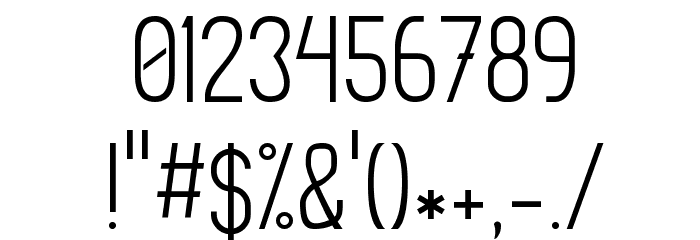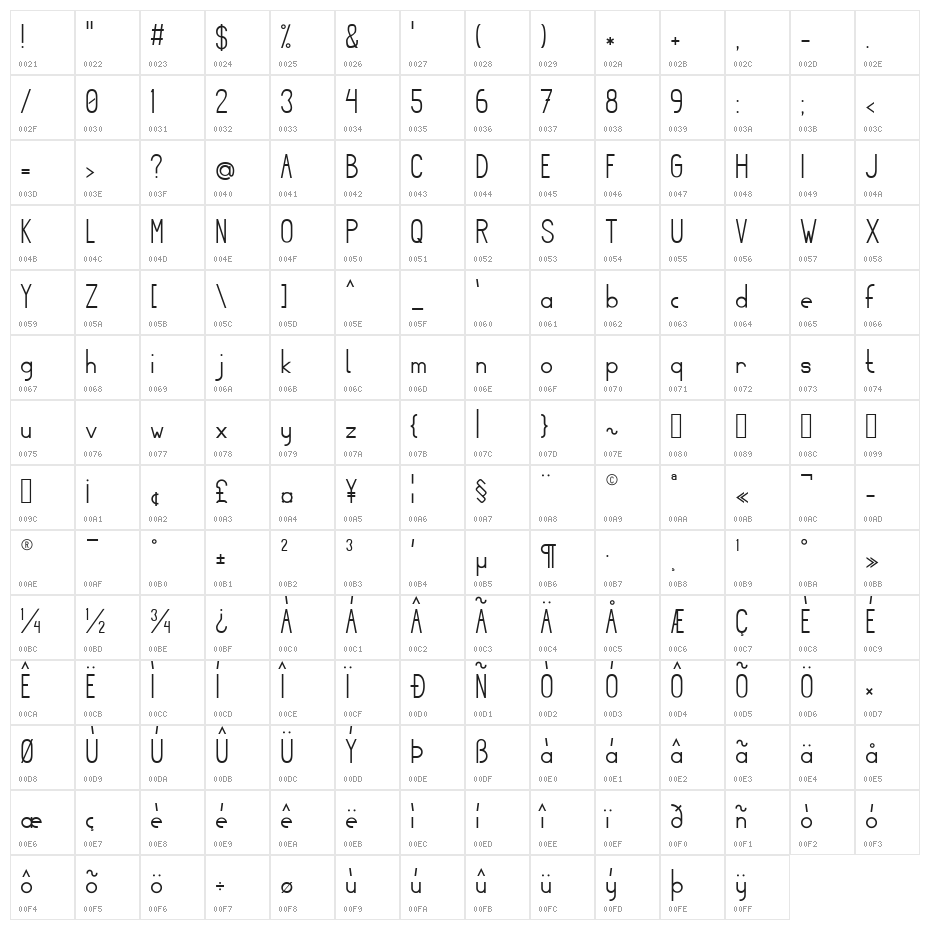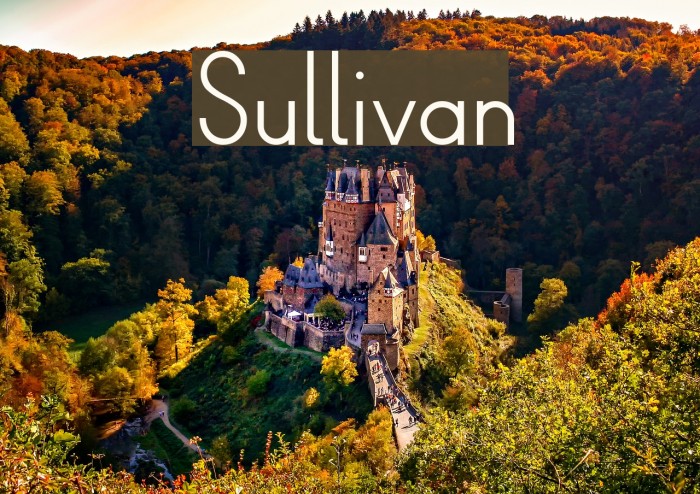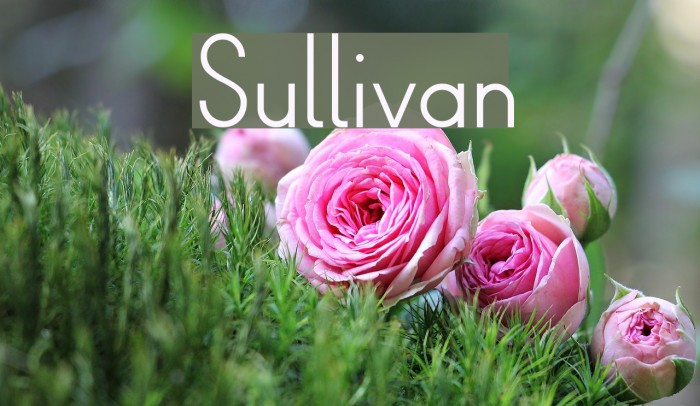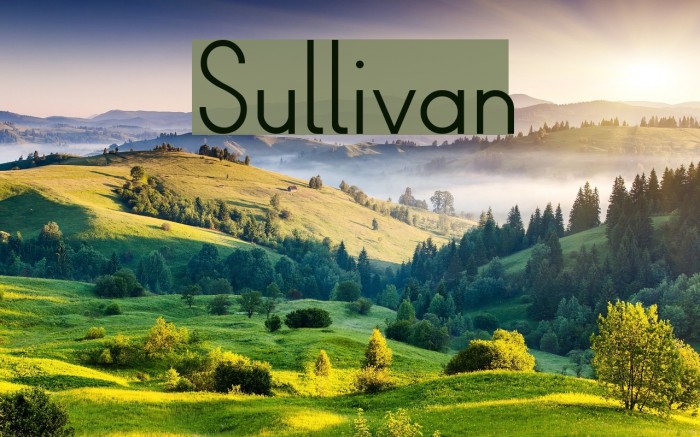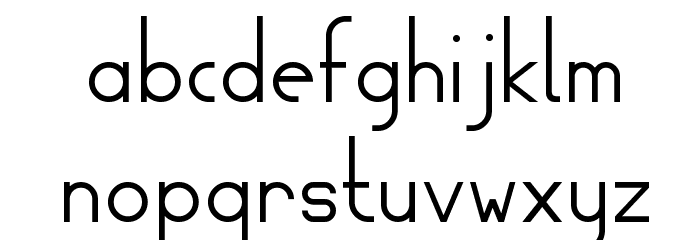
Sullivan Font
Sullivan Description
This font features a clean and modern design with a geometric structure. The characters are tall and narrow, giving it a sleek appearance. The uppercase letters are uniform in height, while the lowercase letters maintain a consistent baseline with slight variations in ascenders and descenders. The numerals are distinct and easy to read, matching the overall style of the alphabet. Special characters are well-integrated, maintaining the font's cohesive look. The strokes are consistent in weight, providing a balanced and harmonious feel.
| Proposed Projects | Ideal for branding, advertising, posters, and modern web design projects. |